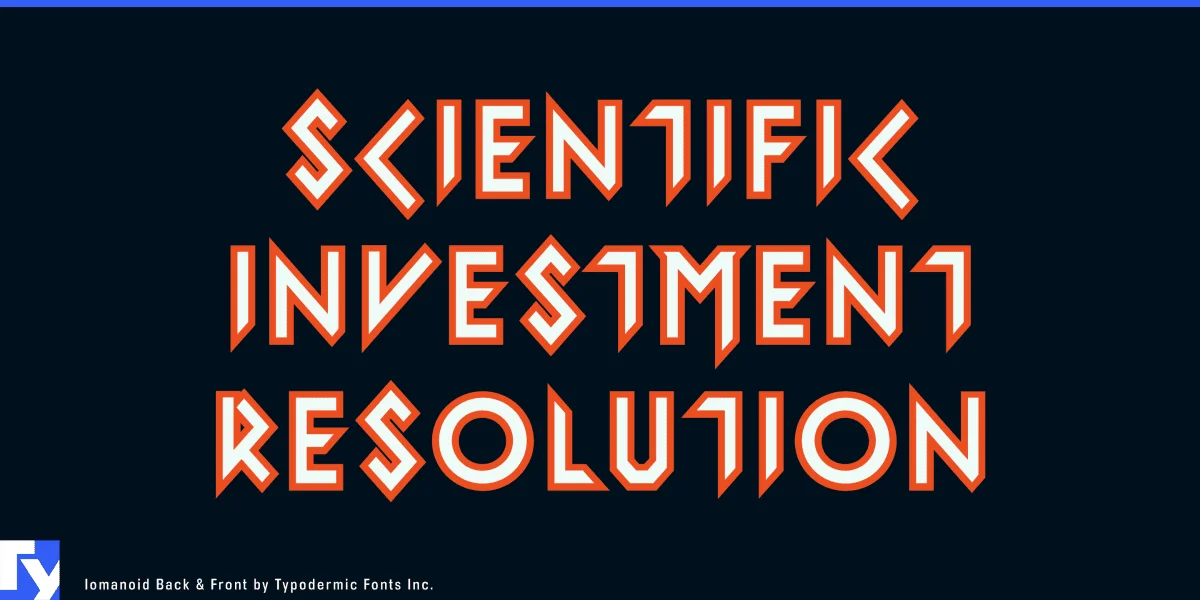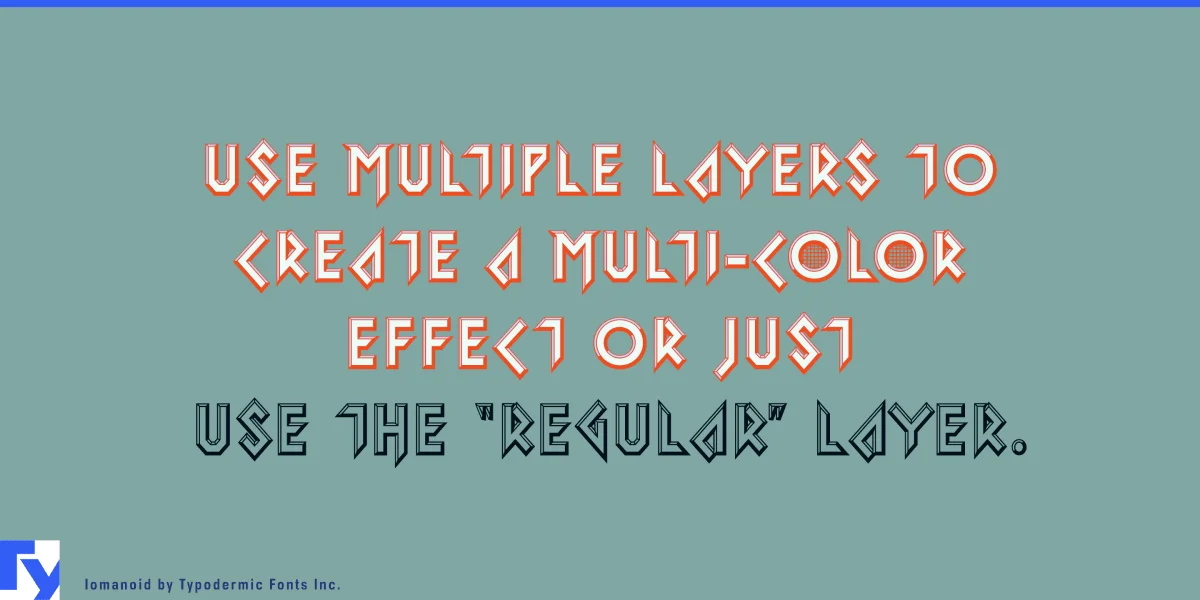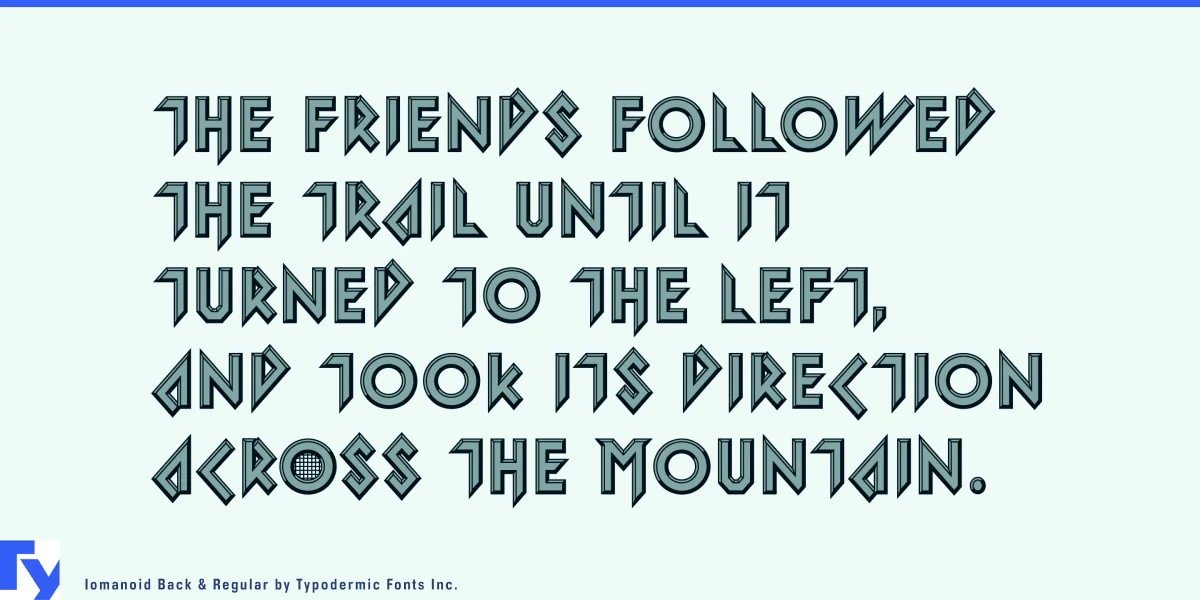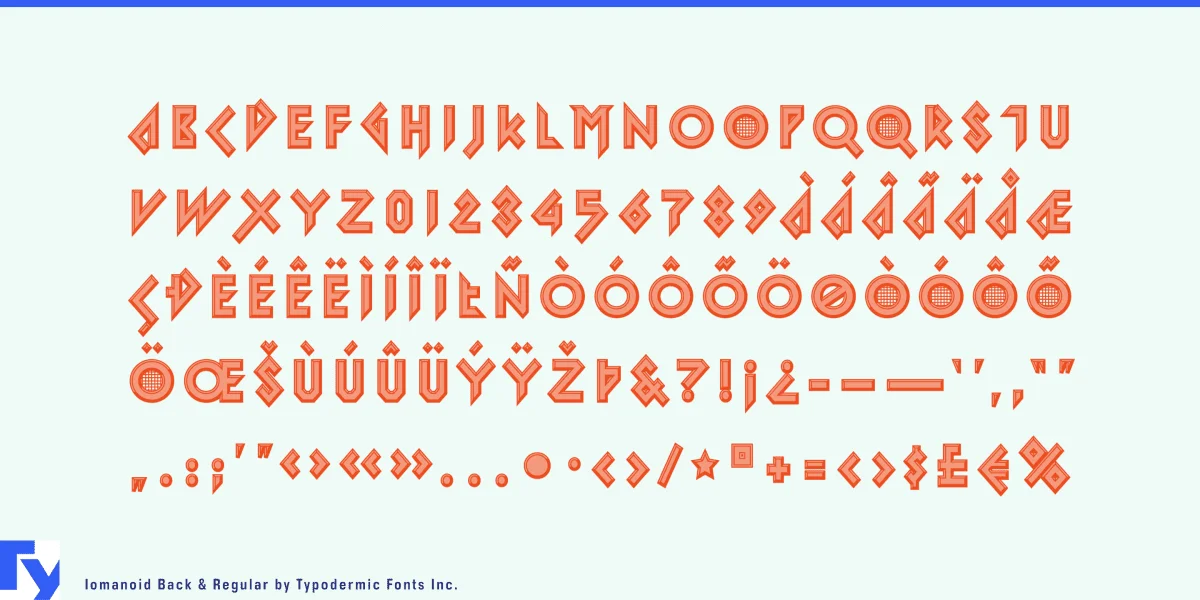
Iomanoid is a video game inspired, 1980s techno typeface. Use the transparent regular style or stack the back, front, and shine layers. Some Latin-based European writing systems are supported, including the following languages. Afaan Oromo, Afar, Afrikaans, Albanian, Alsatian, Aymara, Basque, Bemba, Bikol, Breton, Cape Verdean, Creole, Catalan, Cebuano, Chamorro, Chavacano, Danish, Dawan, Dholuo, Dutch, English, Estonian, Faroese, Fijian, Filipino, Finnish, French, Frisian, Friulian, Galician, Genoese, German, Guadeloupean Creole, Haitian Creole, Hiligaynon, Icelandic, Ilocano, Indonesian, Irish, Italian, Jamaican, Kaqchikel, Kikongo, Kinyarwanda, Kirundi, Lombard, Low Saxon, Luxembourgish, Makhuwa, Malay, Ndebele, Neapolitan, Norwegian, Novial, Occitan, Papiamento, Piedmontese, Portuguese, Quechua, Rarotongan, Romansh, Sango, Saramaccan, Sardinian, Scottish Gaelic, Shona, Sicilian, Silesian, Slovak, Slovenian, Somali, Sotho, Spanish, Swahili, Swazi, Swedish, Tagalog, Tetum, Tshiluba, Tsonga, Tswana, Tumbuka, Uzbek (Latin), Venetian, Võro, Walloon, Waray-Waray, Wayuu, Xhosa, Yapese, Zapotec Zulu and Zuni.